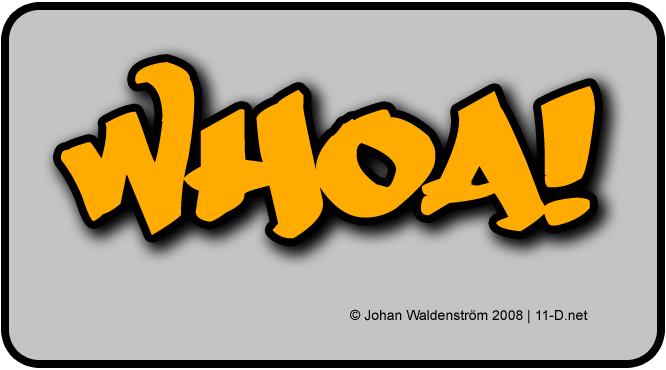
Whoa Font Family
Whoa Font is perfect for dynamic advertising headlines, explosive event posters, surprising product announcements, attention-grabbing social media graphics, breakthrough technology branding, shocking news displays, jaw-dropping campaign materials, and mind-blowing entertainment graphics.
This font is exciting because it delivers instant impact with electrifying letterforms that capture the breathtaking moment of surprise and the overwhelming sensation of being completely amazed by something extraordinary. Whoa Font brings explosive energy to designs through its dynamic structure and shocking styling that feels like typography struck by lightning and charged with pure amazement. The font's astonishing character makes it perfect for brands that create jaw-dropping experiences and want to communicate surprise, excitement, and the kind of overwhelming impact that stops people in their tracks.
The Whoa Font family includes Regular, Bold, Light, Explosive, Shocking, and Amazing variants, each designed to capture different levels of surprise intensity while maintaining the font's characteristic impactful appeal and breathtaking authenticity. The character set features explosive details that enhance the font's connection to surprising moments and amazing revelations.
Whether you're creating branding for breakthrough innovations, designing materials for shocking announcements, or developing content that needs to deliver maximum surprise impact, Whoa Font Free Download delivers the electrifying typography that creates unforgettable moments of pure amazement and overwhelming excitement. This remarkable typeface transforms text into expressions of pure shock that resonate with the same breathtaking energy and mind-blowing power found in life's most surprising moments, ensuring your message communicates the incredible impact and overwhelming excitement that leaves audiences speechless with amazement and completely stunned by the extraordinary experience you've created for them.